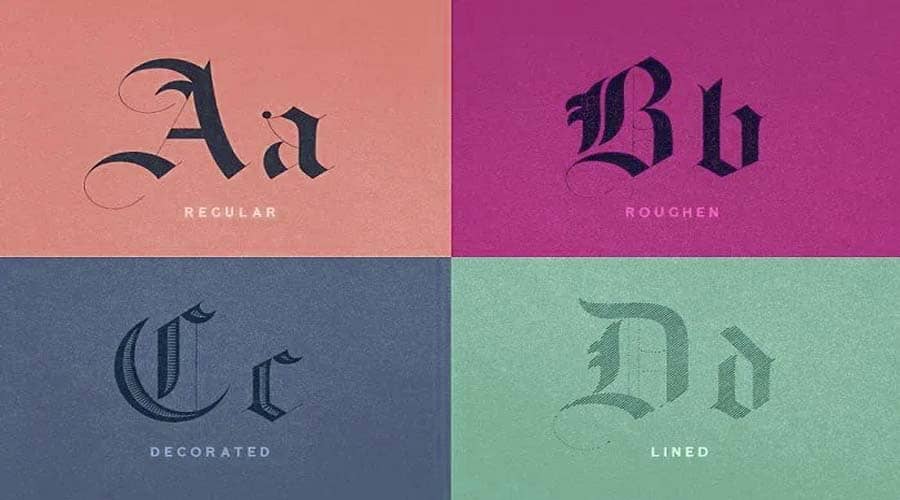
Harbour Typeface
Harbour Typeface has now become reachable! A fabulous Display Typeface. Vintage Voyage Design Co. created and released it on April 10, 2019.
Harbour Typeface is a high-end font. Thanks to Vintage Voyage Design Co for introducing us this top notch Display font. The font is available for purchase on Creativemarket, but it is also available for free download currently. Harbour is a traditional Blackletter Typeface that comes in four variations. Those four variations are Regular, Decorated, Roughen, and Lined. The stunning Display font was inspired by 19th century hand lettering.
The Harbour blackletter font family is best suited for branding, signage, apparel, media stories, and so on. Harbour Typeface is also perfect for writing on t-shirts. It can also be used in price tags for any newly relaunched brand. The font has already been used on price tags for a number of different brands.